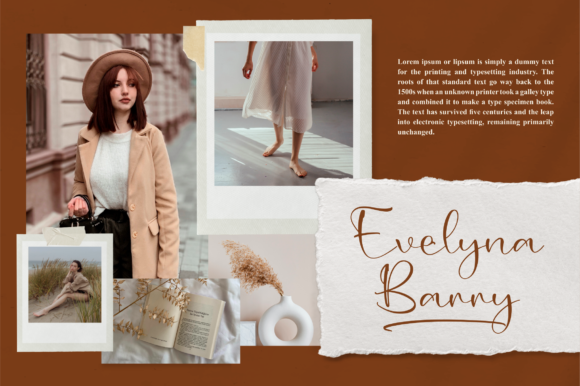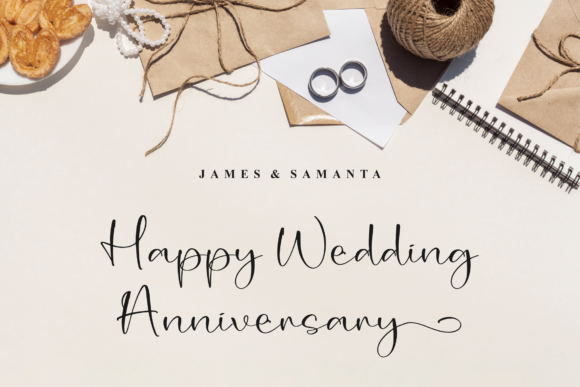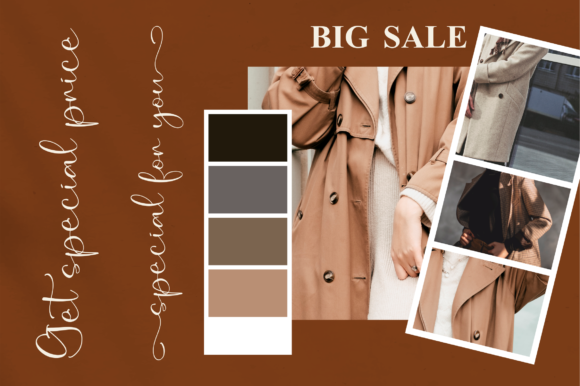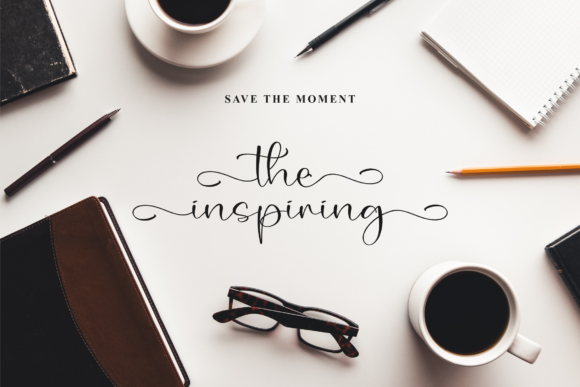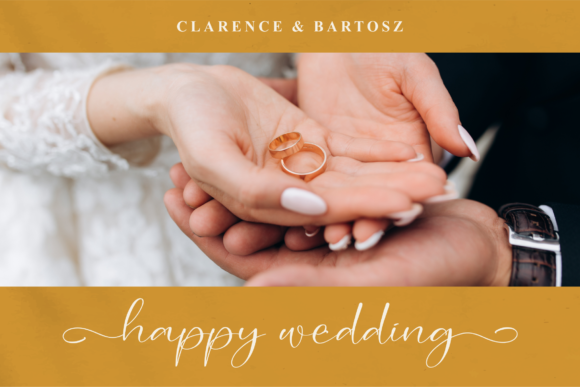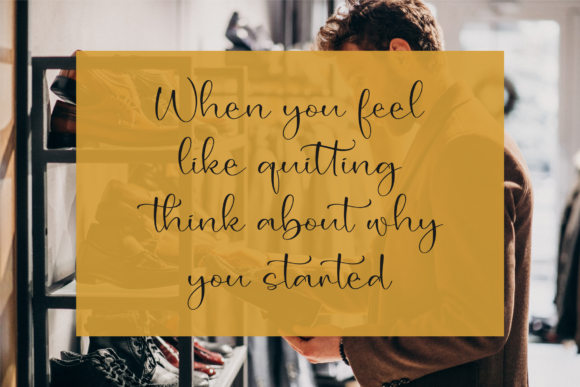
Alysha Mounty Font: Elevate Your Designs with Elegance and Sophistication
In the world of typography, a beautiful script font can make all the difference in creating stunning designs that capture the essence of a brand or product. One such font that has been making waves in the design community is the Alysha Mounty Font. This gorgeous script font is perfect for designers and crafters looking to add a touch of elegance and sophistication to their projects.
What Makes Alysha Mounty Font So Special?
Alysha Mounty Font is a versatile script font that is suitable for a wide range of projects, including logos, branding projects, homeware designs, product packaging, mugs, quotes, posters, and more. Its beautiful script taste is sure to elevate any design, making it stand out from the crowd. Whether you’re a professional designer or a crafter, this font is a must-have in your collection.
Key Features of Alysha Mounty Font
- PUA Encoded: One of the standout features of Alysha Mounty Font is that it is PUA (Private Use Area) encoded. This means that you can access all of the amazing glyphs and ligatures with ease, giving you complete creative control over your designs.
- Beautiful Script Taste: The font boasts a stunning script taste that is perfect for adding a touch of elegance and sophistication to your designs.
- Versatile: Alysha Mounty Font is suitable for a wide range of projects, from logos and branding to homeware designs and product packaging.
Why Designers and Crafters Love Alysha Mounty Font
Designers and crafters love Alysha Mounty Font for its versatility and ease of use. The font is perfect for creating stunning designs that require a touch of elegance and sophistication. With Alysha Mounty Font, you can:
- Create beautiful logos and branding materials that make your clients stand out.
- Design stunning homeware products, such as cushions, tote bags, and mugs, that are sure to impress.
- Develop eye-catching product packaging that sets your products apart from the competition.
- Make inspiring quotes and posters that motivate and uplift.
Tips for Using Alysha Mounty Font
To get the most out of Alysha Mounty Font, here are some tips to keep in mind:
- Experiment with Different Sizes: Alysha Mounty Font looks great in a variety of sizes, from small and delicate to large and bold. Experiment with different sizes to find the one that works best for your project.
- Pair with Other Fonts: Don’t be afraid to pair Alysha Mounty Font with other fonts to create a unique and interesting design. A simple sans-serif font can provide a beautiful contrast to the script taste of Alysha Mounty.
- Play with Colors: The beauty of Alysha Mounty Font can be enhanced with the right color scheme. Experiment with different colors to find the one that complements your design.
In conclusion, Alysha Mounty Font is a gorgeous script font that is perfect for designers and crafters looking to add a touch of elegance and sophistication to their projects. With its PUA encoding, beautiful script taste, and versatility, this font is a must-have in any design collection. Whether you’re creating logos, branding materials, homeware designs, or product packaging, Alysha Mounty Font is sure to elevate your designs to the next level.